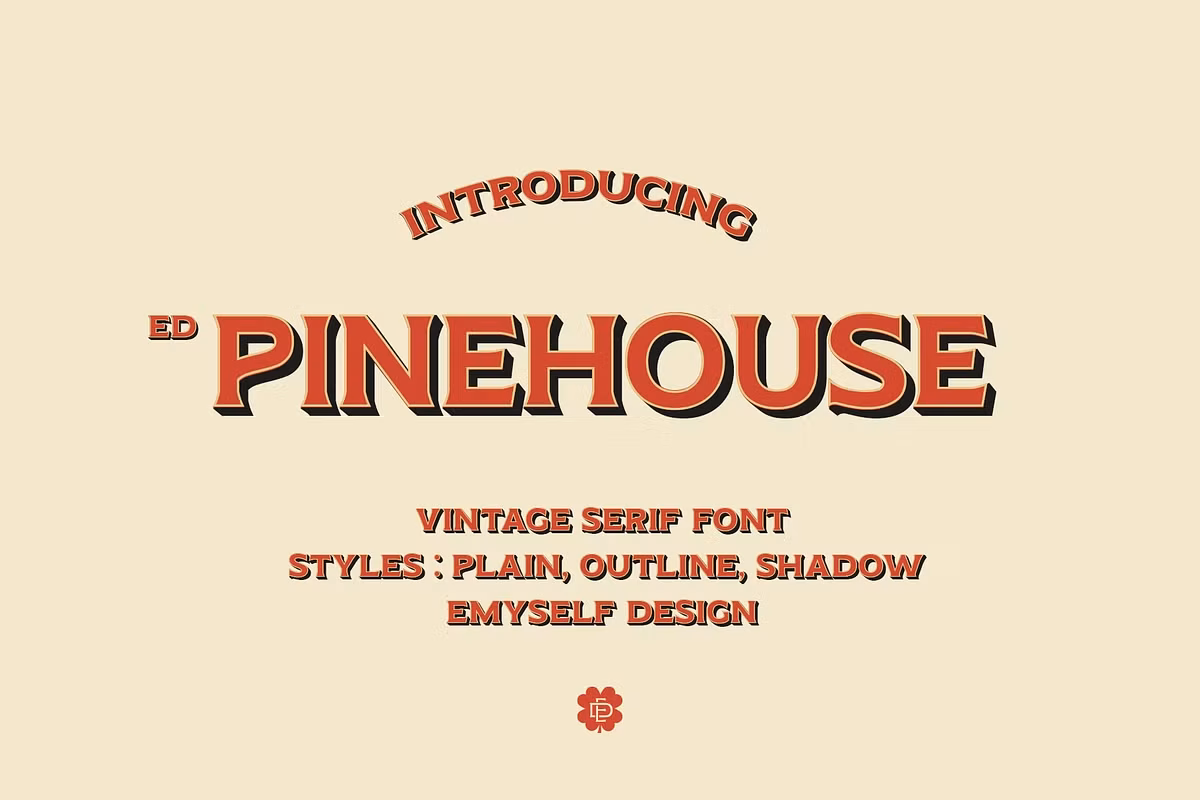
You must purchase this font for commercial use. However, you can download ED Pinehouse Vintage Serif Font Free Download for testing purposes. ED Pinehouse is a beautifully designed vintage serif font that blends classic charm with a refined modern touch. Ideal for branding, book covers, editorial layouts, product labels, vintage-inspired logos, and retro packaging, this font brings a nostalgic feel to your creative work while maintaining excellent readability.
With its elegant serifs, subtle curves, and strong character, ED Pinehouse adds personality and sophistication to any design. It includes alternates and ligatures that give designers the freedom to customize typography with flair and creativity. Whether you're crafting a heritage brand or adding an old-school aesthetic to a modern project, ED Pinehouse Vintage Serif Font Free Download lets you test its full visual appeal. Be sure to purchase the appropriate license if using it commercially. Download ED Pinehouse Vintage Serif Font Free Download today and bring timeless style and classic elegance to your designs.